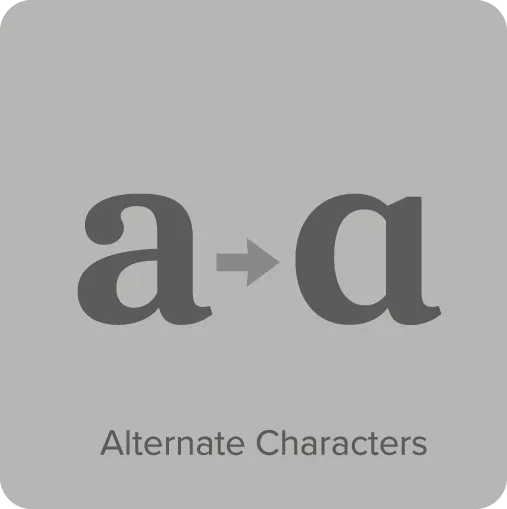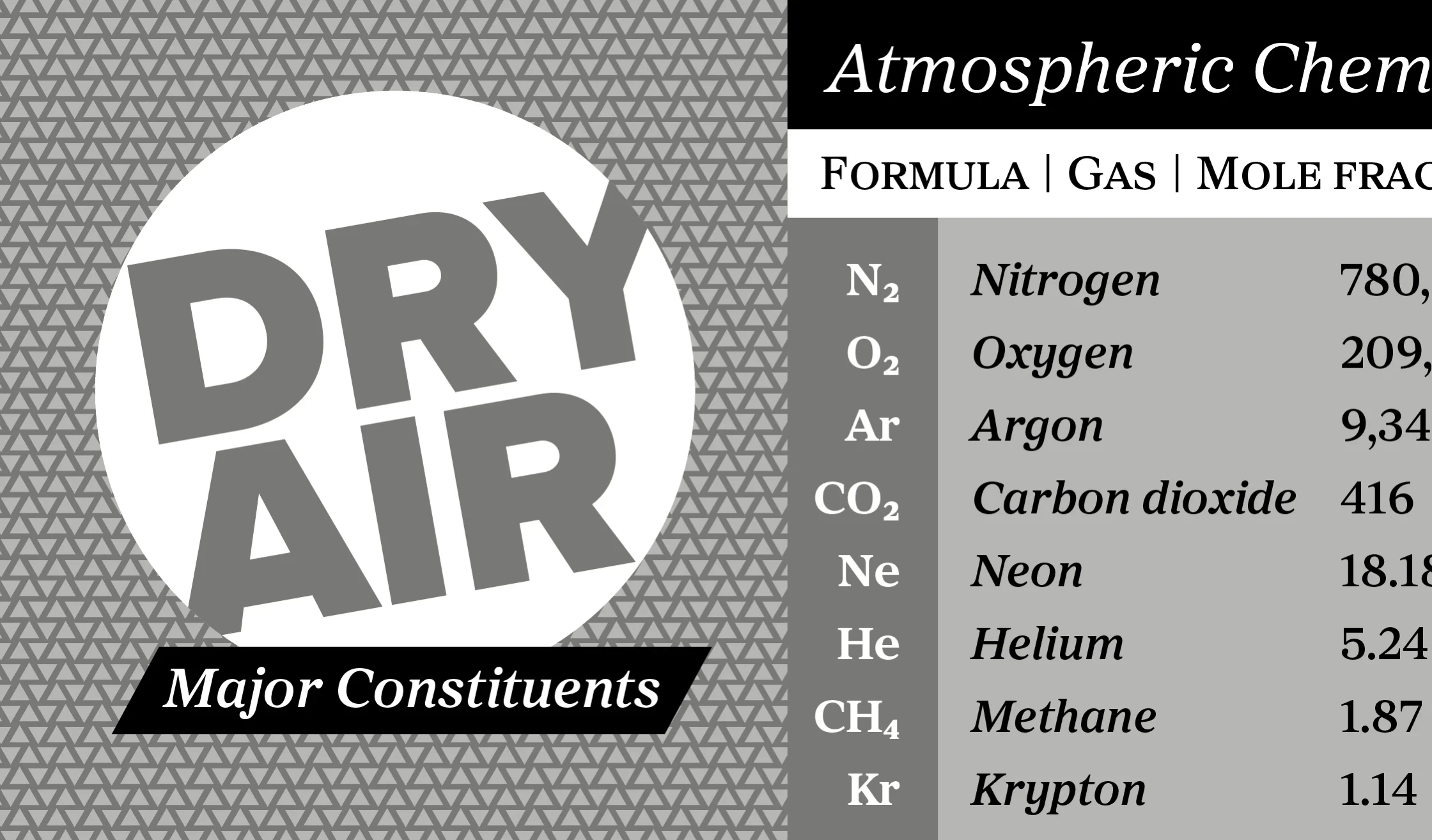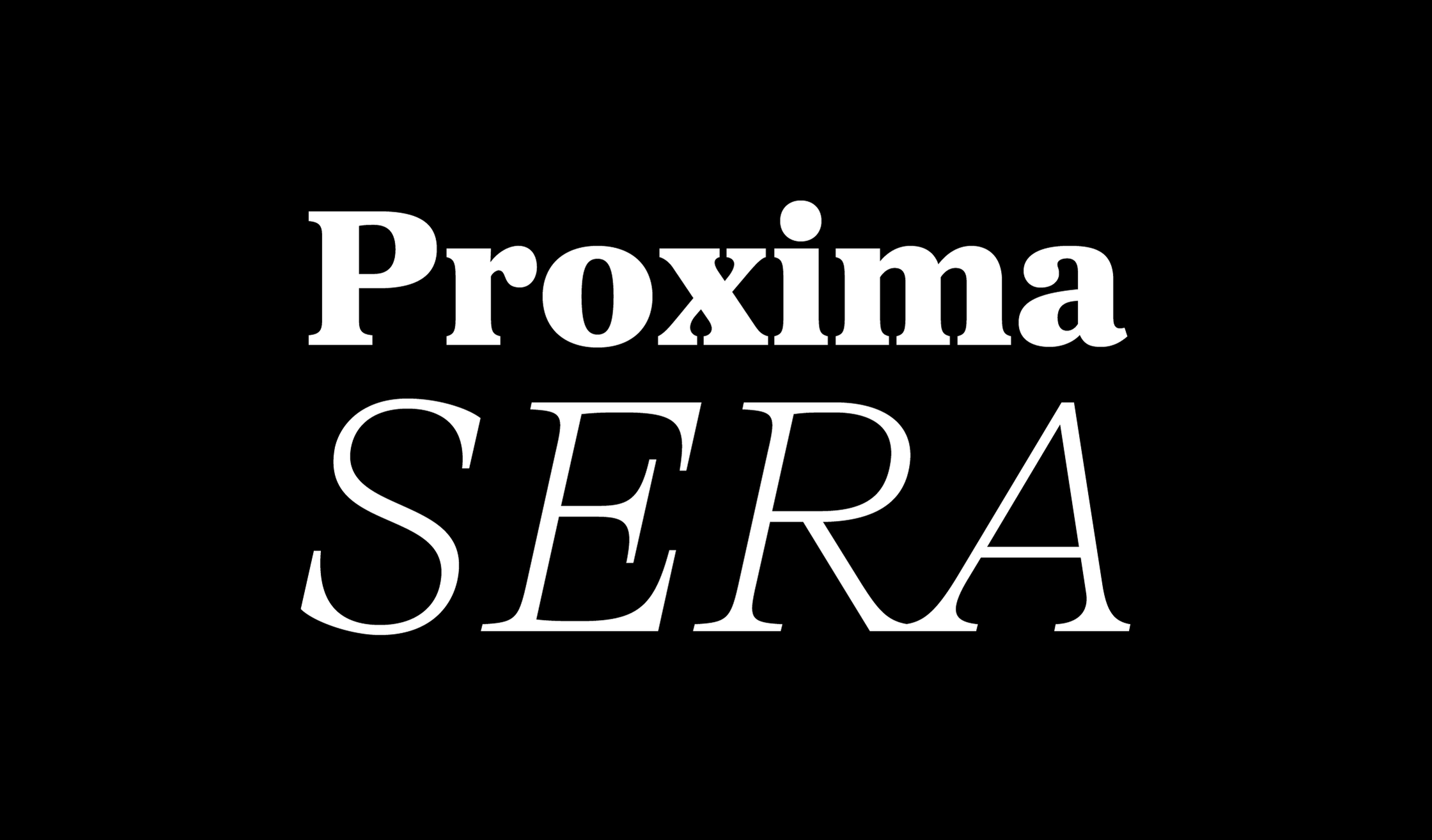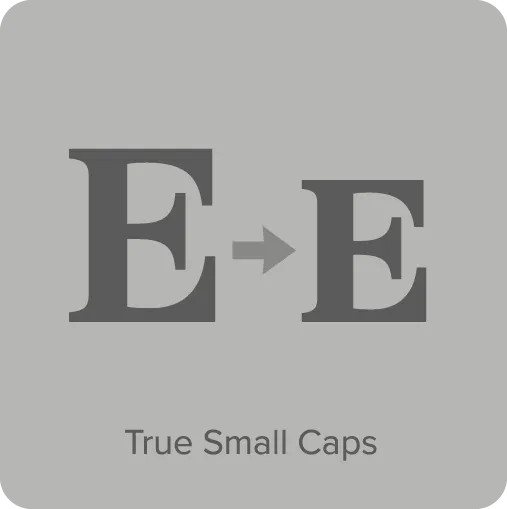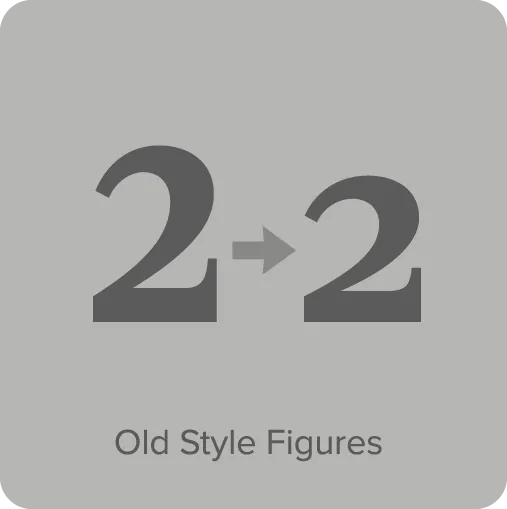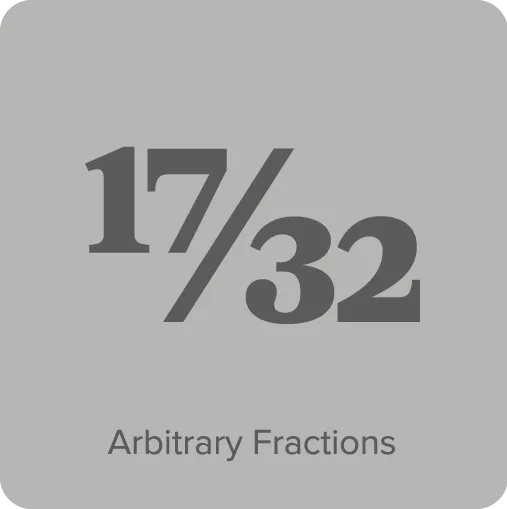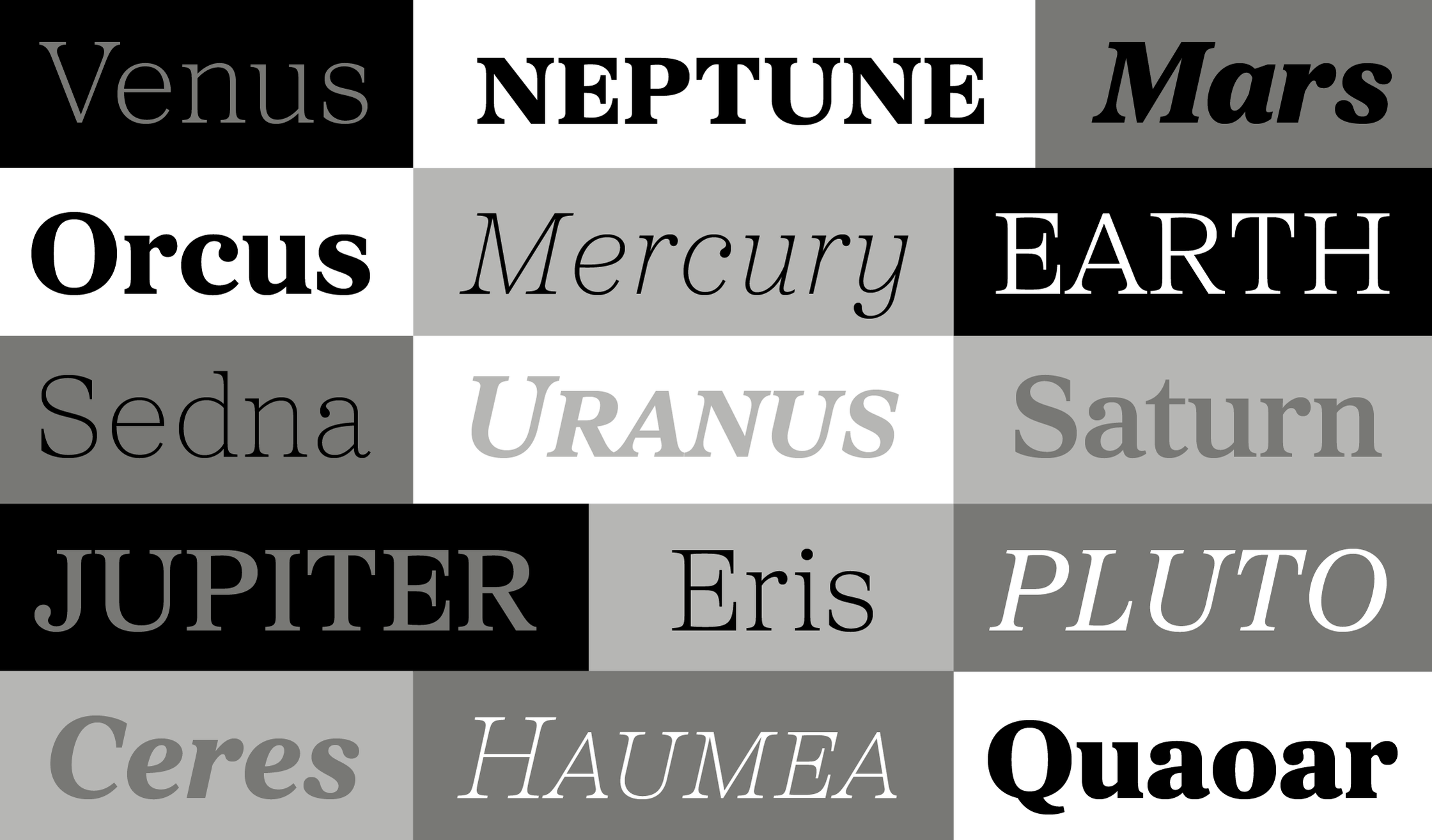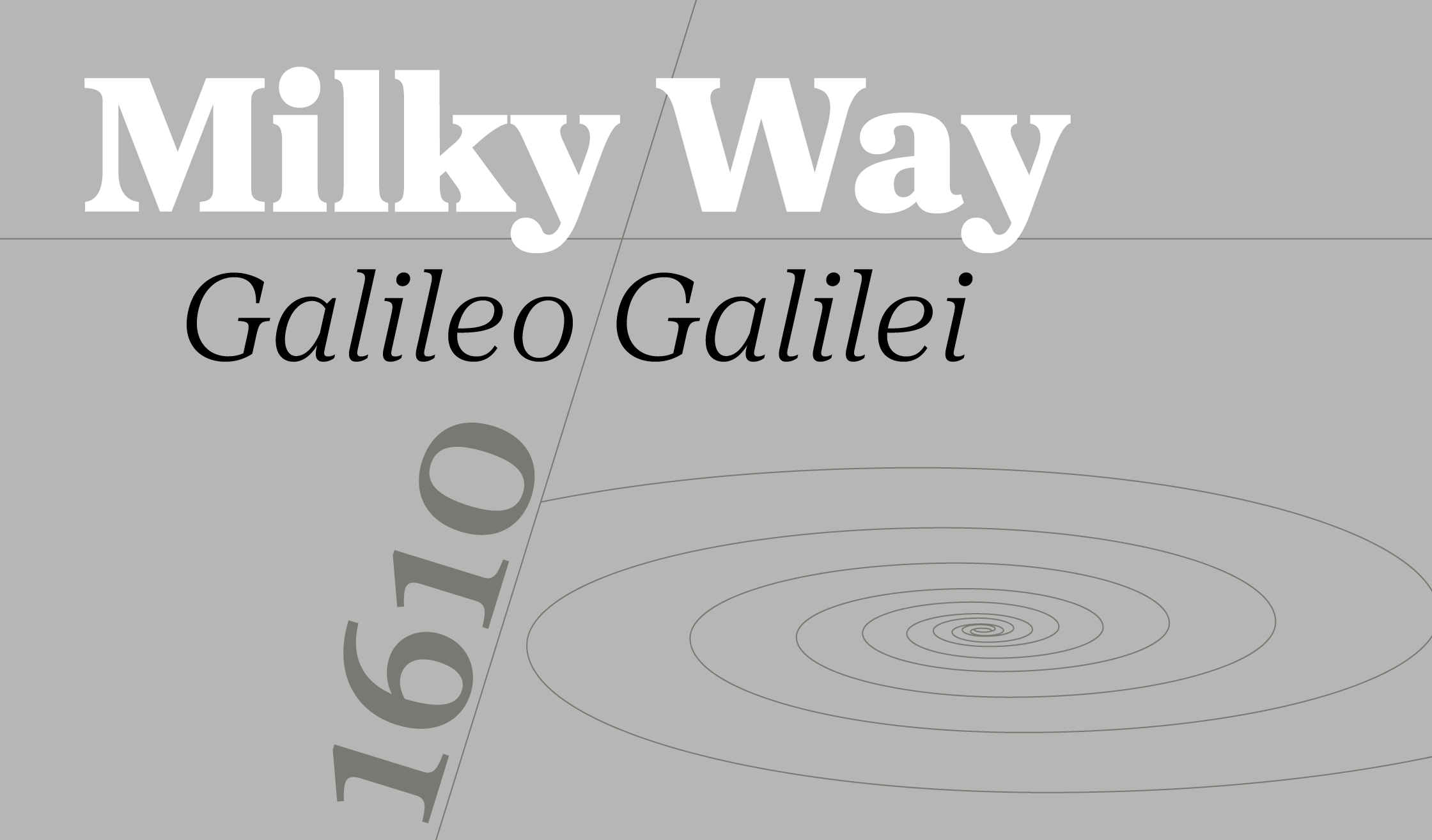
Proxima Sera (2022) answers the question that designers and typographers have asked for more than fifteen years — what serif typeface should I pair with Proxima Nova? Proxima Sera is a hybrid design, combining characteristics of old style and modern serif typefaces into something new that is clean and highly readable. While its proportions and range of weights are designed to harmonize with Proxima Nova, it stands alone just as well. Its even color and large x-height make it a logical choice for text settings, but Proxima Sera still has enough warmth for display use — especially Thin and Black. Try those in headlines, posters, or anywhere else you need to bring some fresh personality.
Proxima Sera Features
- 9 weights: Thin, Extralight, Light, Regular, Medium, Semibold, Bold, Extrabold, and Black.
- Matching italics for all weights and widths.
- Small caps for all styles.*
- Proportional and tabular figures.*
- Full “f” ligature set (ff, fi, fl, ffi, ffl, etc.).*
- Alternate characters (a, g, l, y).*
- 7 stylistic sets (for activating alternate characters).*
- Automatic fractions.*
- Automatic ordinals.*
- 16 dingbats.
- Extended language support for most Latin-based Western and Central European languages and Vietnamese.
- Extended currency support.